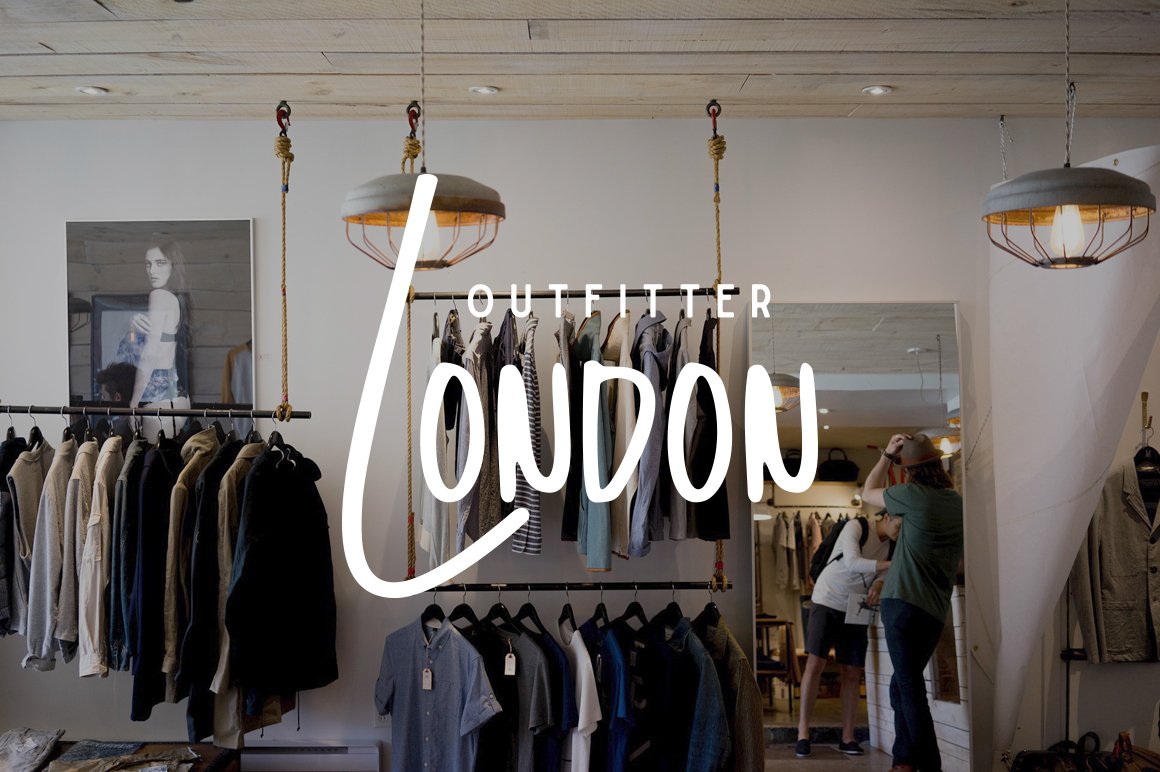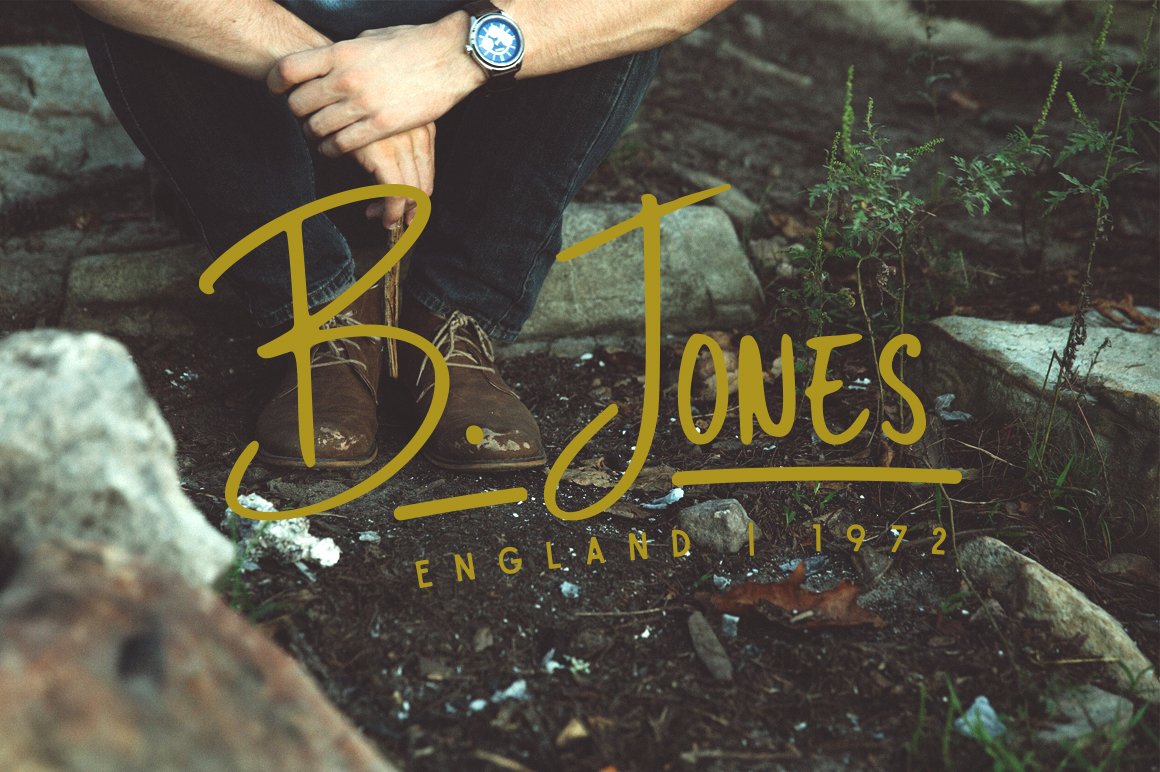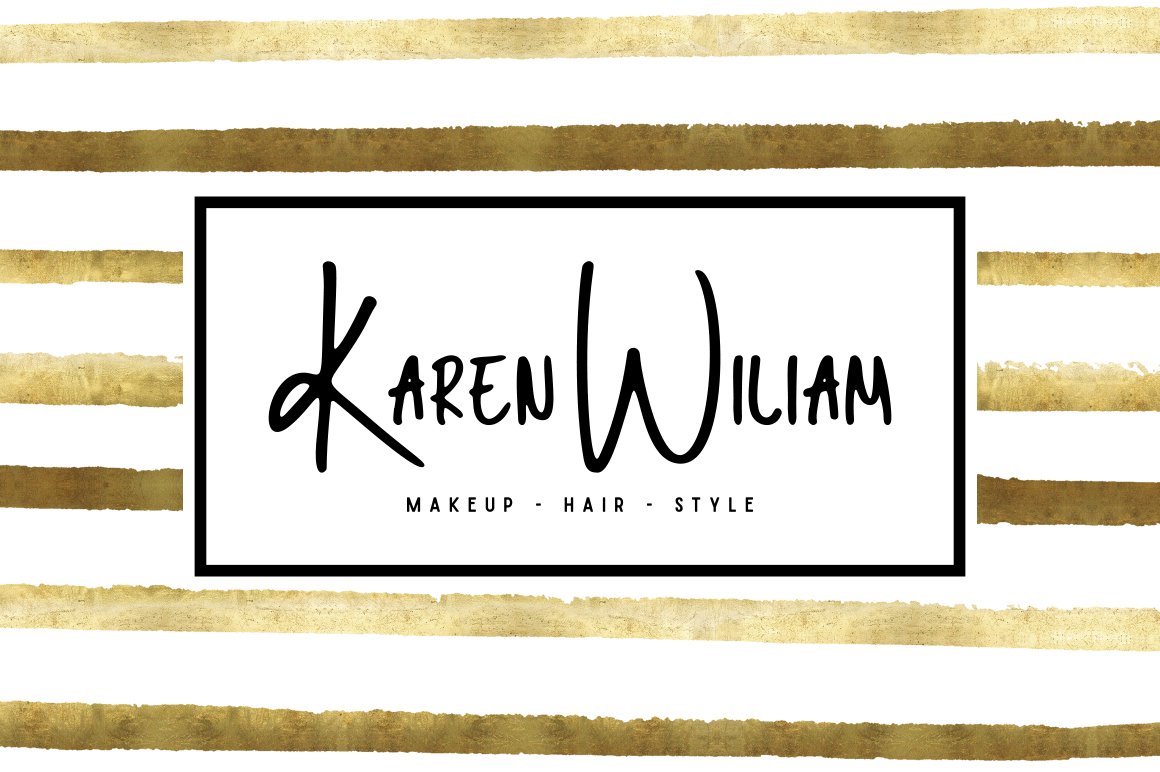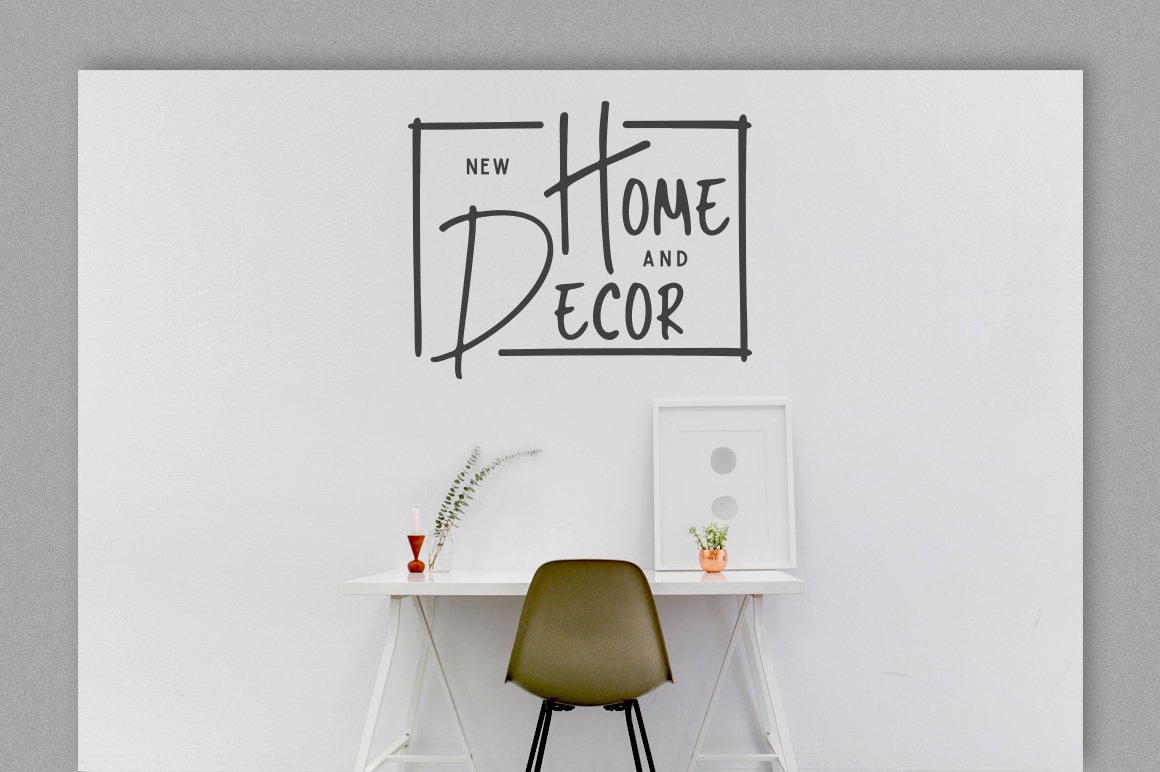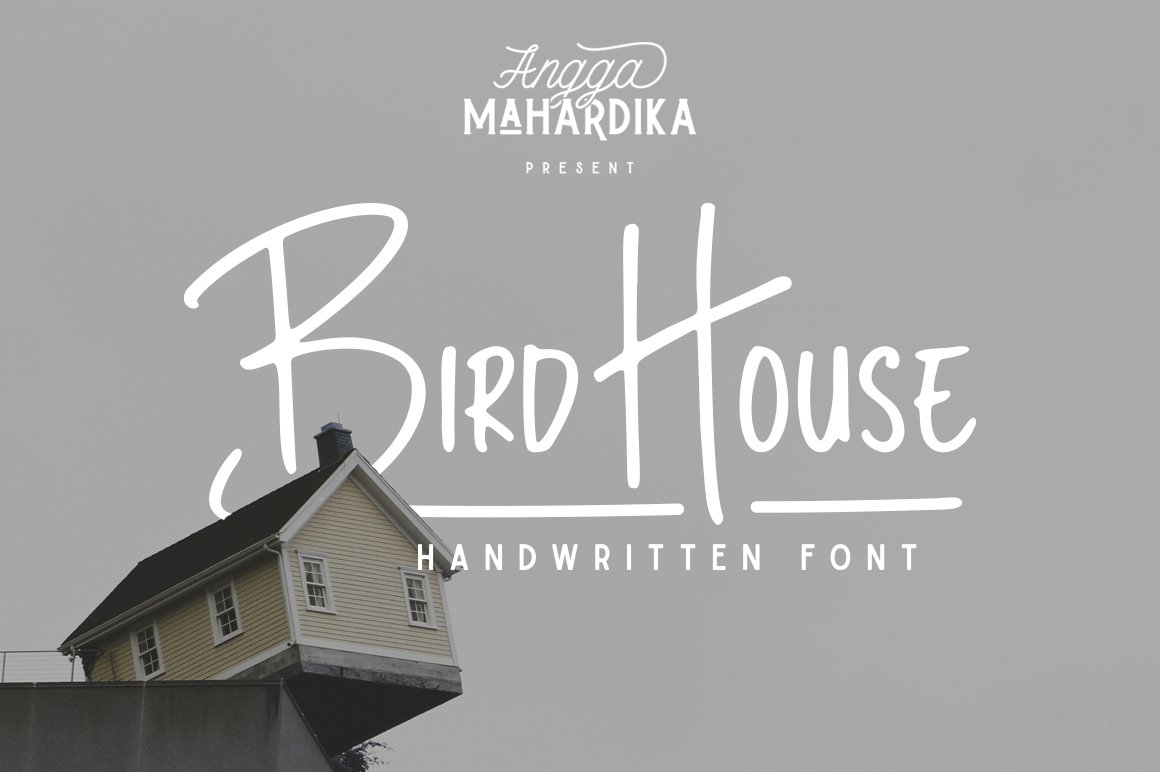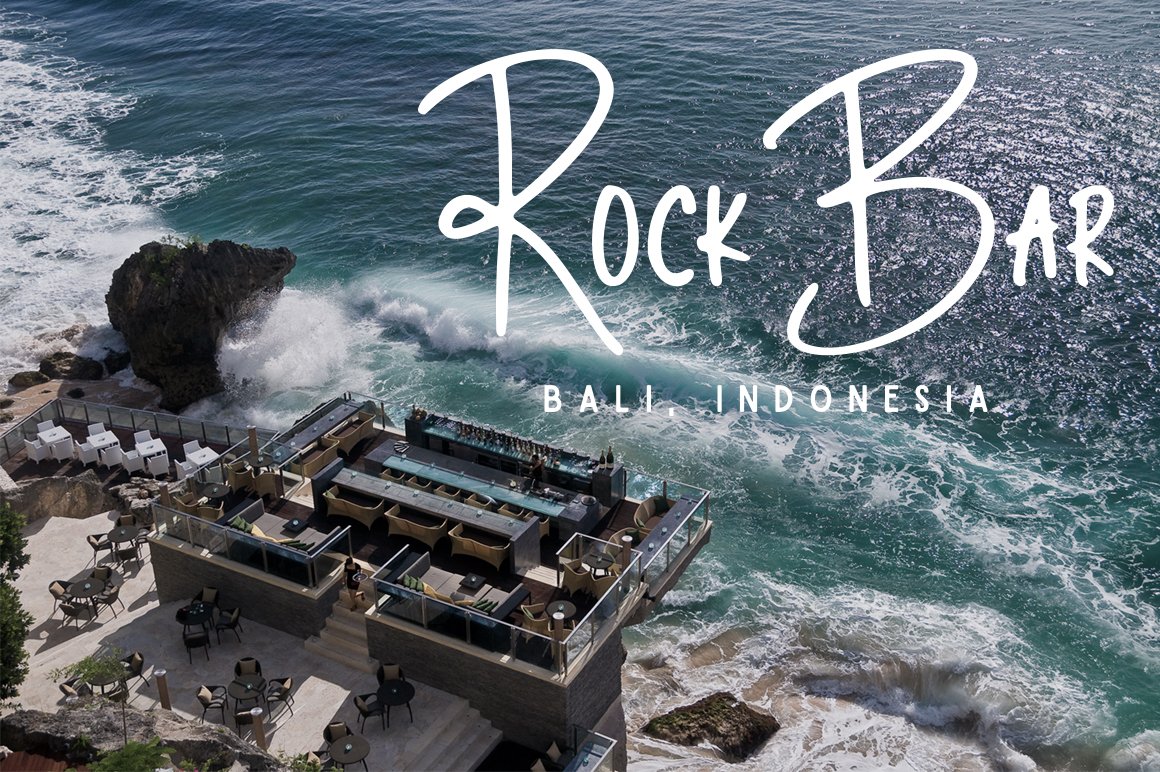
Bird House
Bird House is a handwritten font designed using markers. This font perfect for branding, signature, and more. It includes uppercase, lowercase standard character, punctuation and multiple language support.